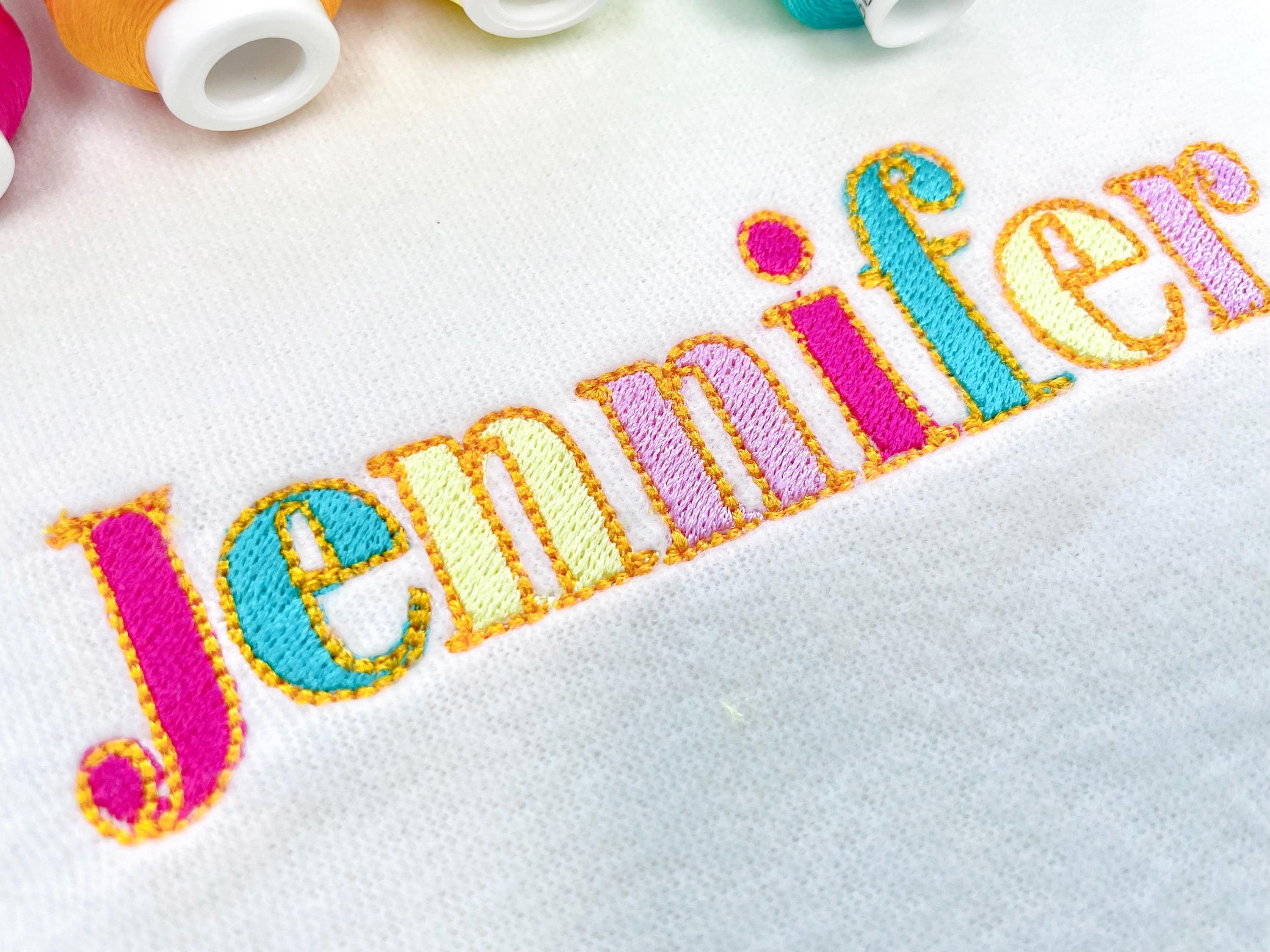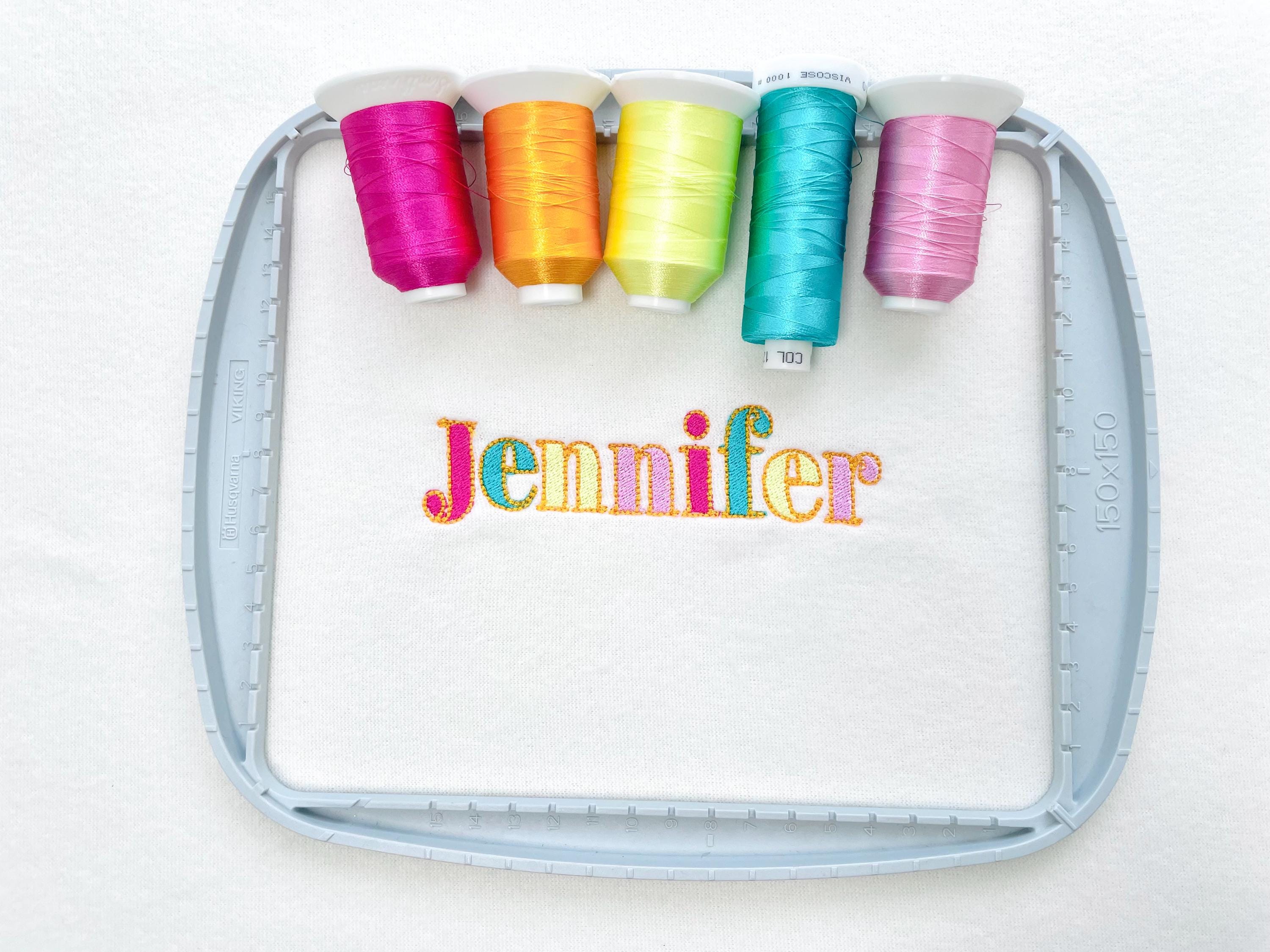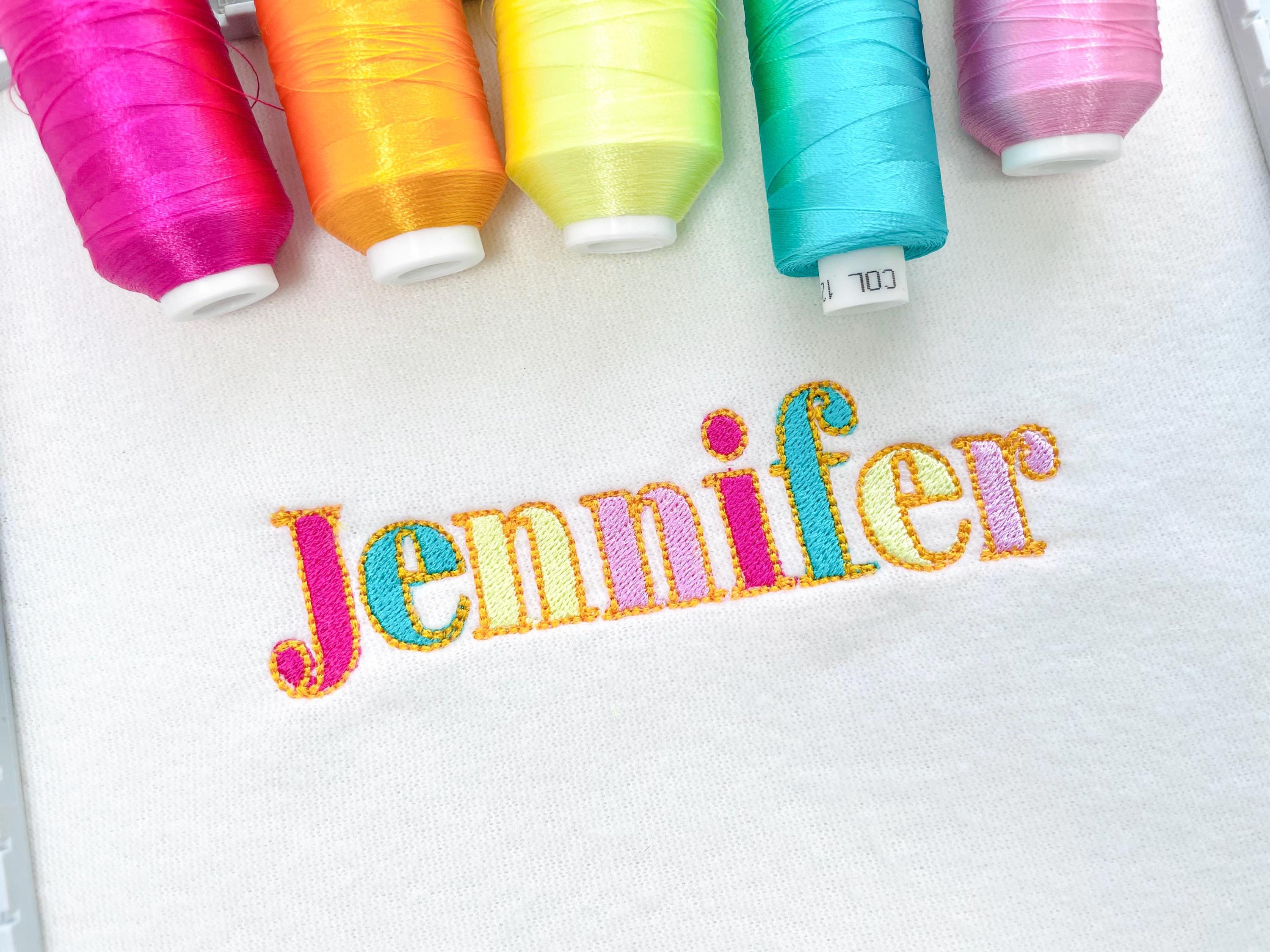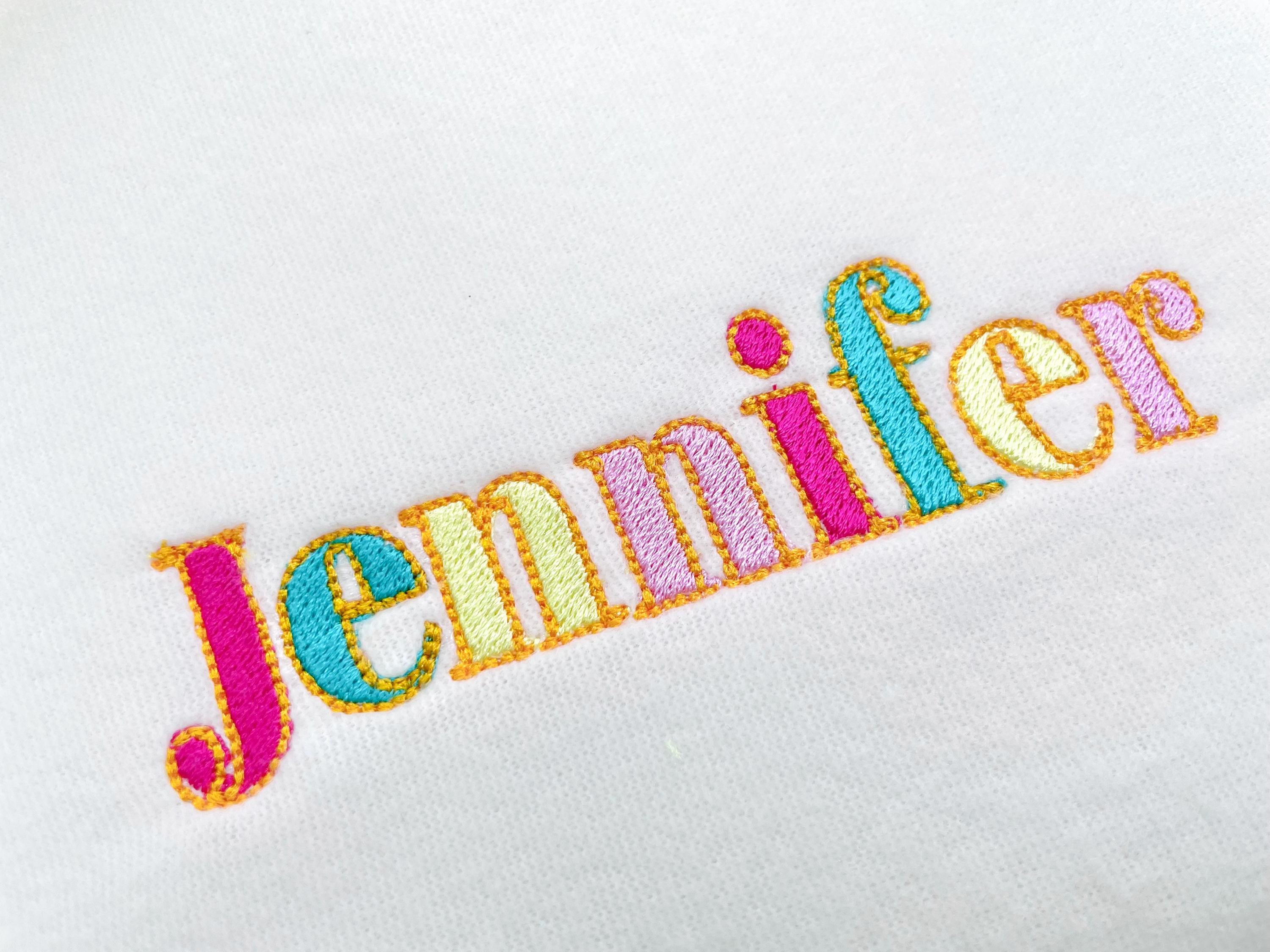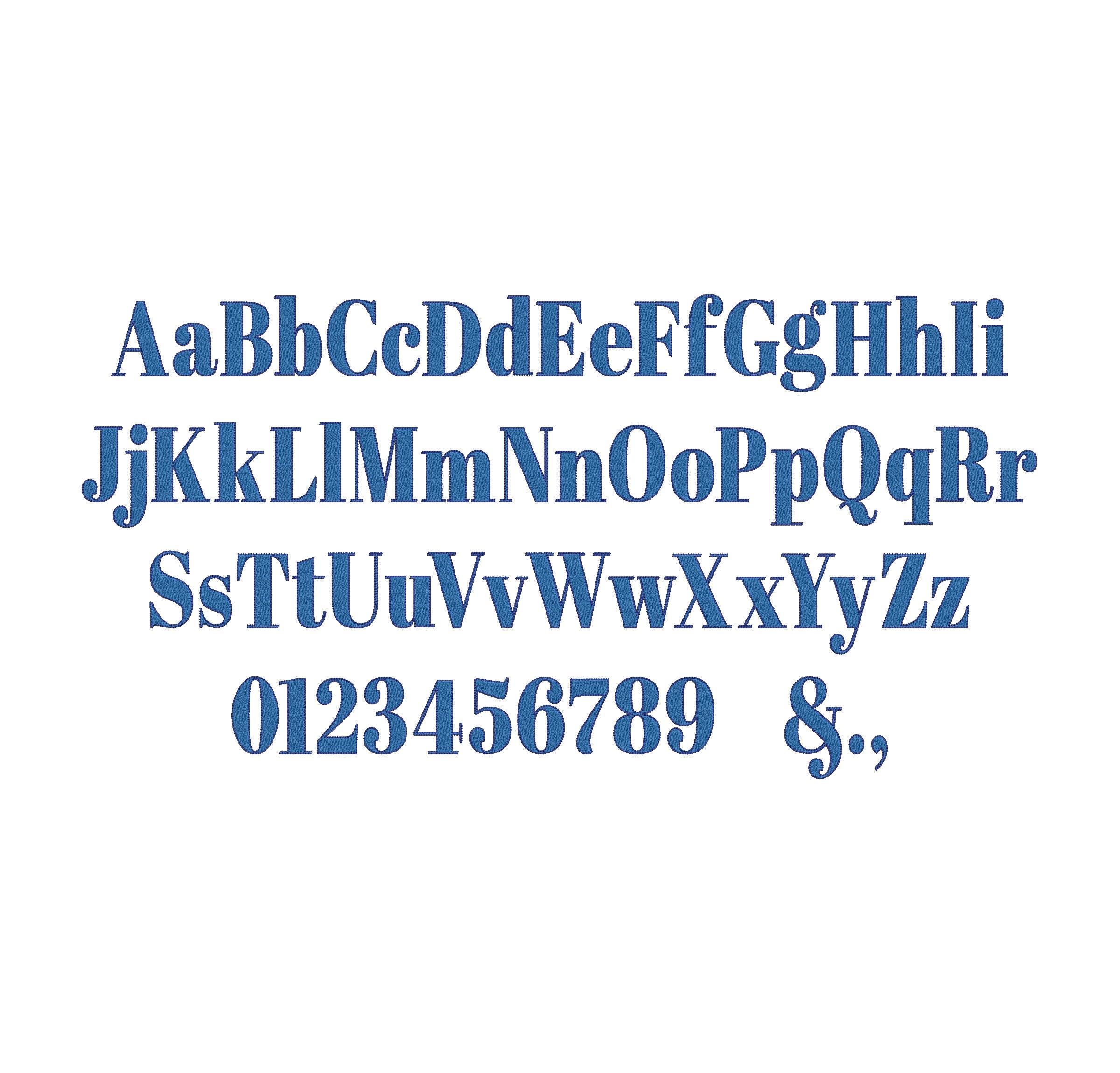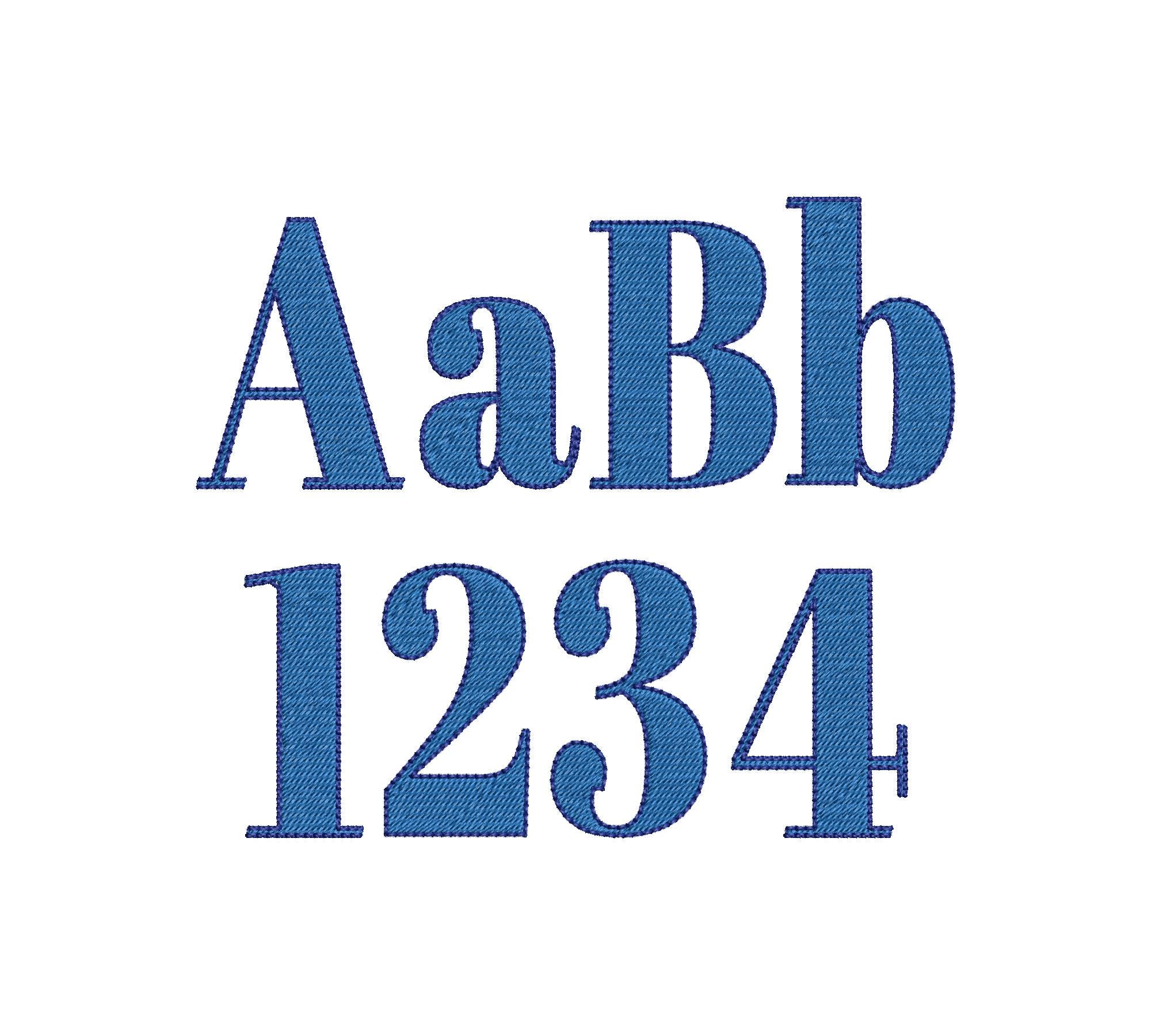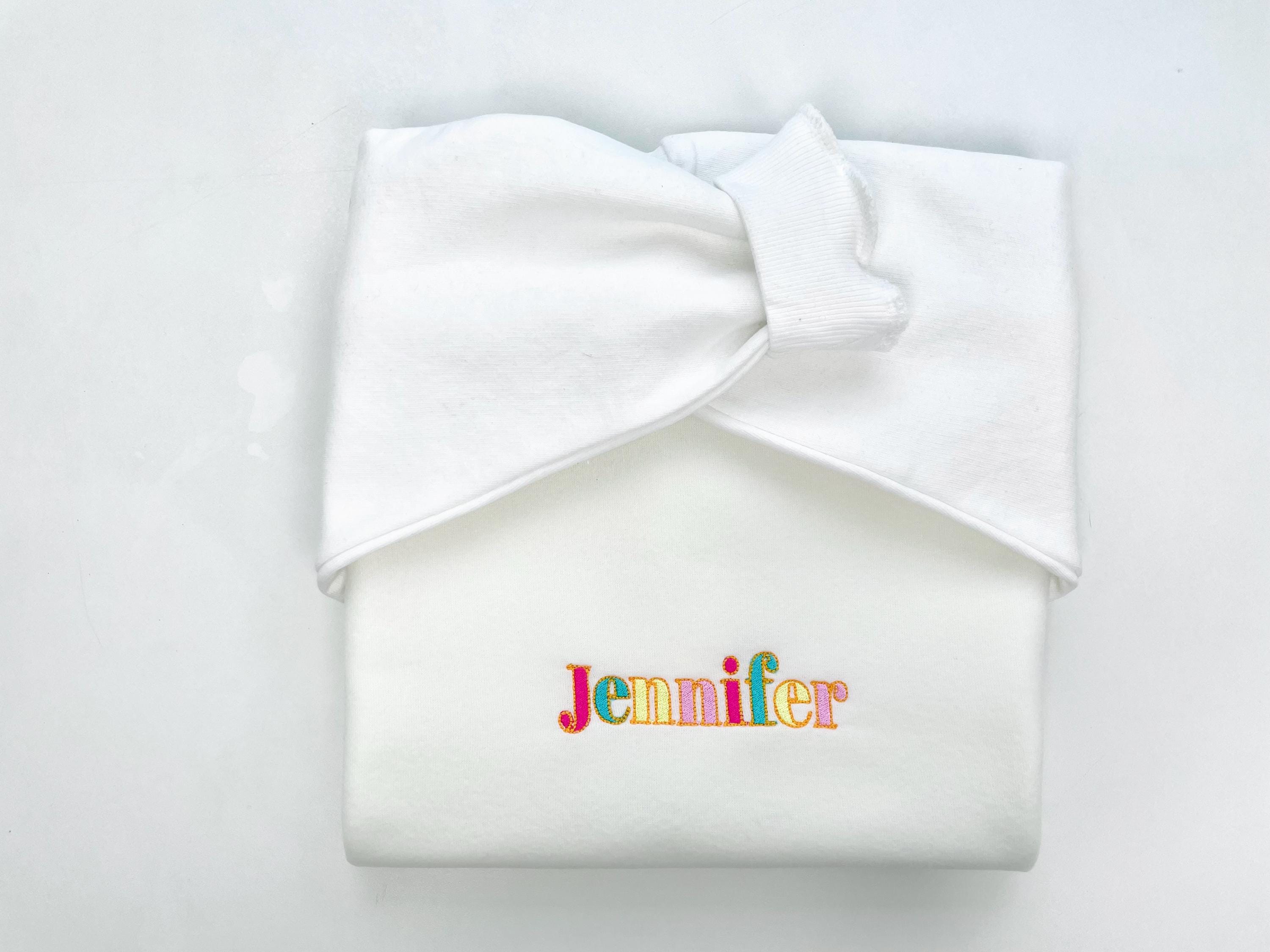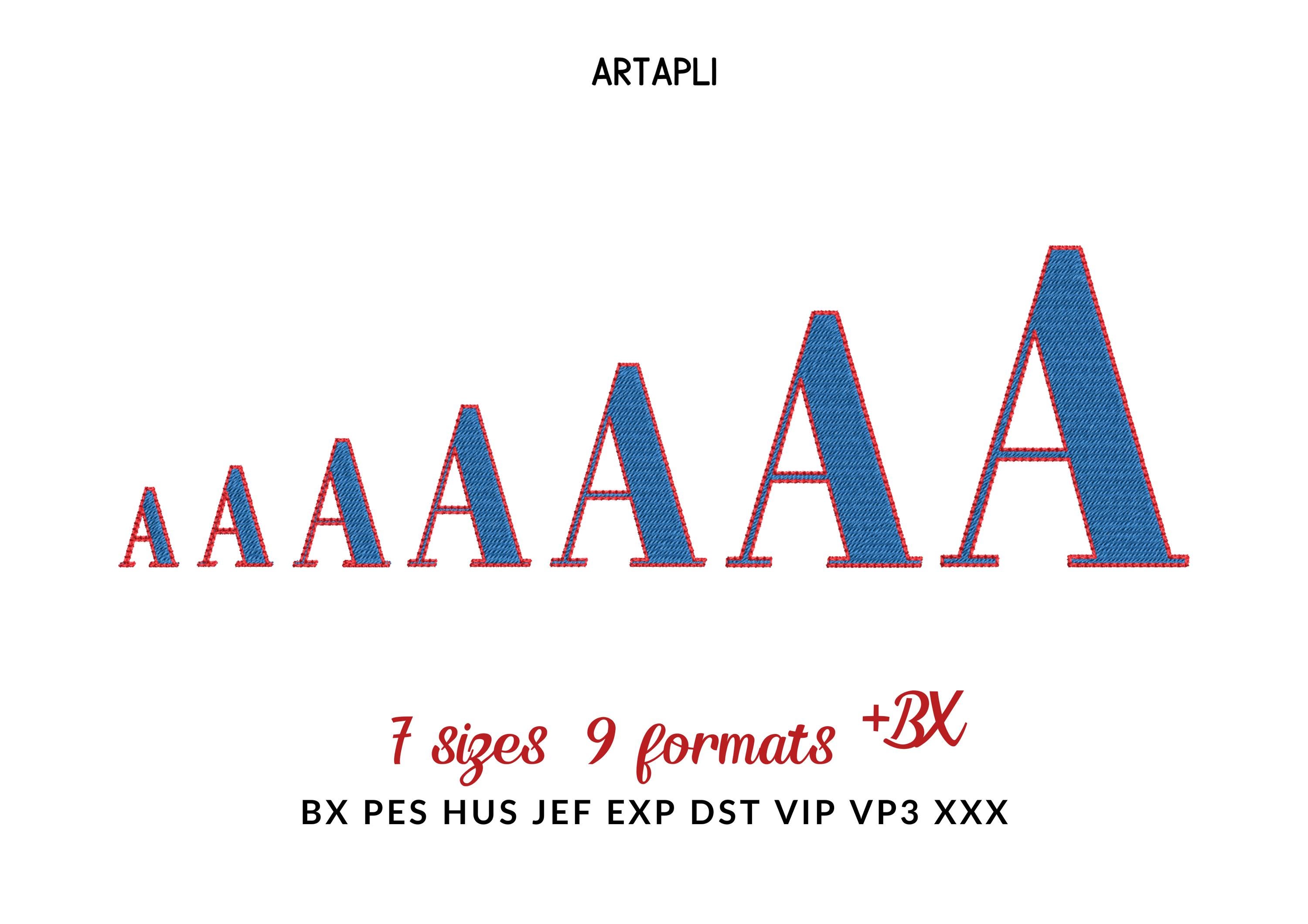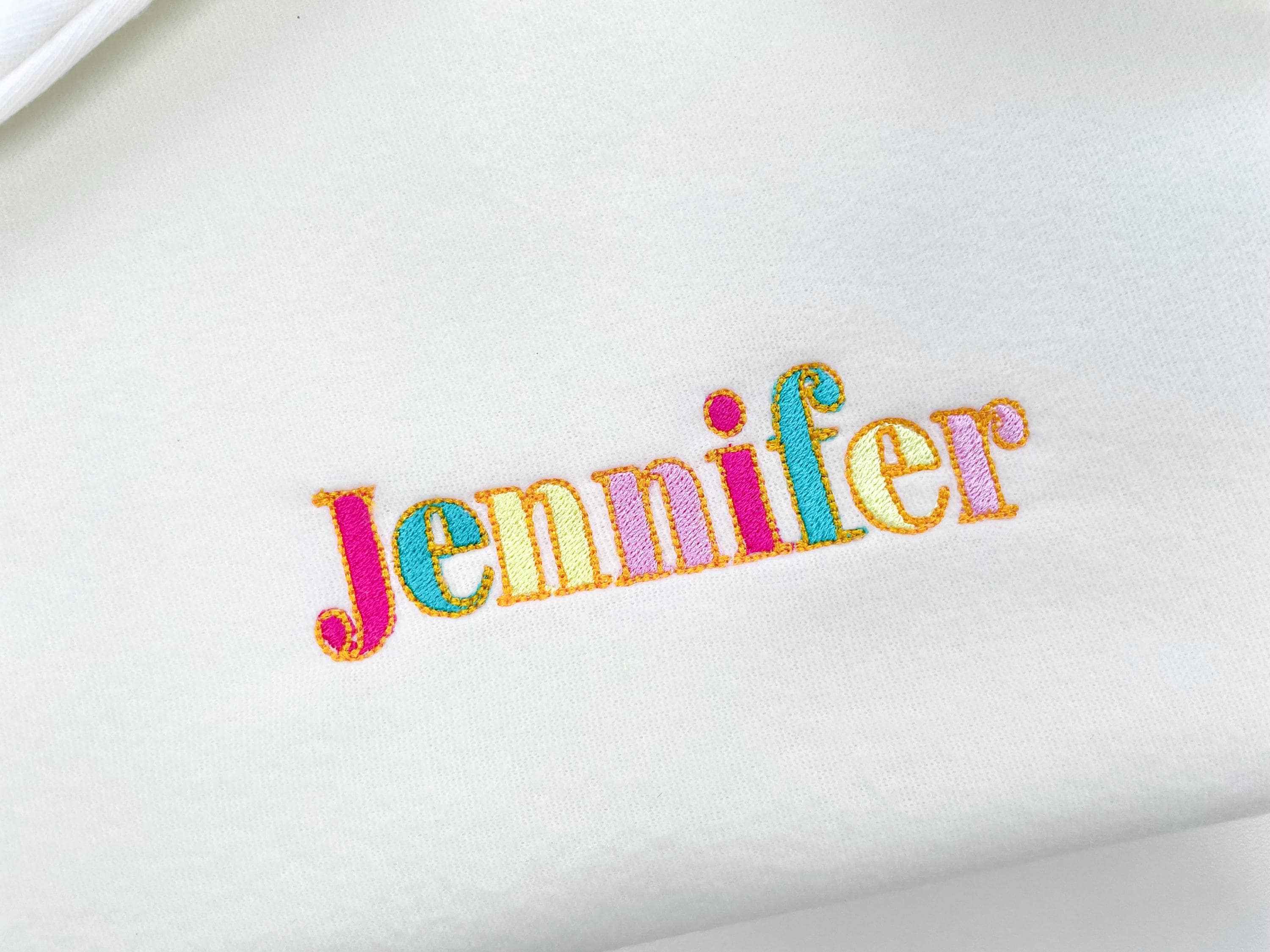
Elegant Font Kate fill stitch and outline Block Font Alphabet Monogram machine embroidery designs many sizes 0.9 up to 3.5 inch and BX
Whole alphabet - uppercase and lowercase letters Aa-Zz, numbers 0-9, and punctuation.
It has a thin bean stitch outline.
Beautiful Font! Stitches out perfectly!! Love it!!!❤️❤️❤️❤️
love this design so much!
I definitely recommend this font. It stitched out extremely well. Just know that it stitches letter by letter so those without a multi needle machine will need to change thread often.
This stitched out beautifully! I will absolutely buy from this shop again!